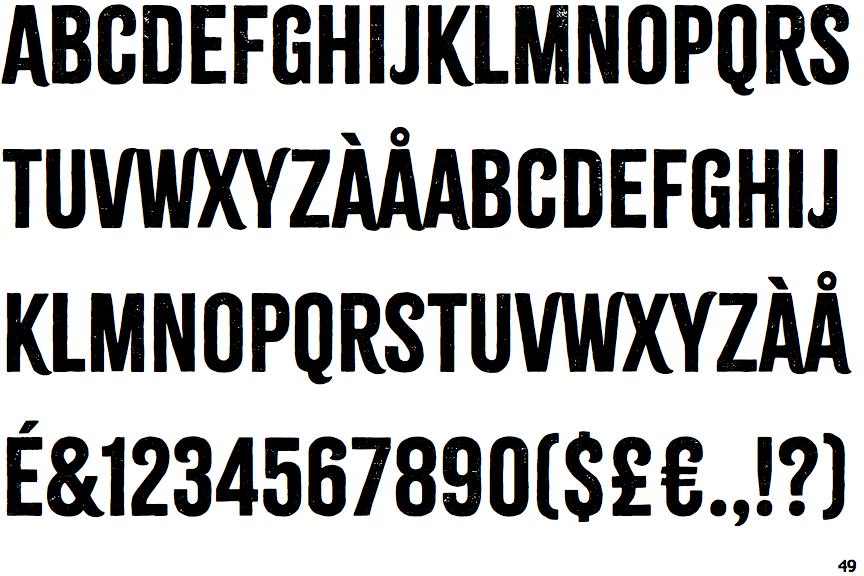
Citrus Gothic Font
Citrus Gothic Font - Bold, distressed font with a vintage texture. This font features a bold, distressed style with a vintage, textured appearance. A sans serif typeface with 10 styles, available from adobe fonts for sync and web. Explore citrus gothic designed by adam ladd at adobe fonts.
This font features a bold, distressed style with a vintage, textured appearance. Bold, distressed font with a vintage texture. Explore citrus gothic designed by adam ladd at adobe fonts. A sans serif typeface with 10 styles, available from adobe fonts for sync and web.
Bold, distressed font with a vintage texture. This font features a bold, distressed style with a vintage, textured appearance. Explore citrus gothic designed by adam ladd at adobe fonts. A sans serif typeface with 10 styles, available from adobe fonts for sync and web.
Citrus Gothic Font Family By Adam Ladd
A sans serif typeface with 10 styles, available from adobe fonts for sync and web. Explore citrus gothic designed by adam ladd at adobe fonts. Bold, distressed font with a vintage texture. This font features a bold, distressed style with a vintage, textured appearance.
Citrus Gothic Font Family By Adam Ladd
Explore citrus gothic designed by adam ladd at adobe fonts. A sans serif typeface with 10 styles, available from adobe fonts for sync and web. Bold, distressed font with a vintage texture. This font features a bold, distressed style with a vintage, textured appearance.
Citrus Gothic Font Family Behance
A sans serif typeface with 10 styles, available from adobe fonts for sync and web. This font features a bold, distressed style with a vintage, textured appearance. Bold, distressed font with a vintage texture. Explore citrus gothic designed by adam ladd at adobe fonts.
Citrus Gothic Font Family Design Cuts
This font features a bold, distressed style with a vintage, textured appearance. Explore citrus gothic designed by adam ladd at adobe fonts. Bold, distressed font with a vintage texture. A sans serif typeface with 10 styles, available from adobe fonts for sync and web.
Identifont Citrus Gothic
Bold, distressed font with a vintage texture. A sans serif typeface with 10 styles, available from adobe fonts for sync and web. Explore citrus gothic designed by adam ladd at adobe fonts. This font features a bold, distressed style with a vintage, textured appearance.
Citrus Gothic Font Family By Adam Ladd
Bold, distressed font with a vintage texture. Explore citrus gothic designed by adam ladd at adobe fonts. A sans serif typeface with 10 styles, available from adobe fonts for sync and web. This font features a bold, distressed style with a vintage, textured appearance.
Citrus Gothic Font Family Behance
A sans serif typeface with 10 styles, available from adobe fonts for sync and web. This font features a bold, distressed style with a vintage, textured appearance. Bold, distressed font with a vintage texture. Explore citrus gothic designed by adam ladd at adobe fonts.
Citrus Gothic Font Family Behance
This font features a bold, distressed style with a vintage, textured appearance. Explore citrus gothic designed by adam ladd at adobe fonts. Bold, distressed font with a vintage texture. A sans serif typeface with 10 styles, available from adobe fonts for sync and web.
This font features a bold, distressed style with a vintage, textured appearance. A sans serif typeface with 10 styles, available from adobe fonts for sync and web. Bold, distressed font with a vintage texture. Explore citrus gothic designed by adam ladd at adobe fonts.
Citrus Gothic Font Family Behance
This font features a bold, distressed style with a vintage, textured appearance. A sans serif typeface with 10 styles, available from adobe fonts for sync and web. Explore citrus gothic designed by adam ladd at adobe fonts. Bold, distressed font with a vintage texture.
A Sans Serif Typeface With 10 Styles, Available From Adobe Fonts For Sync And Web.
Explore citrus gothic designed by adam ladd at adobe fonts. Bold, distressed font with a vintage texture. This font features a bold, distressed style with a vintage, textured appearance.